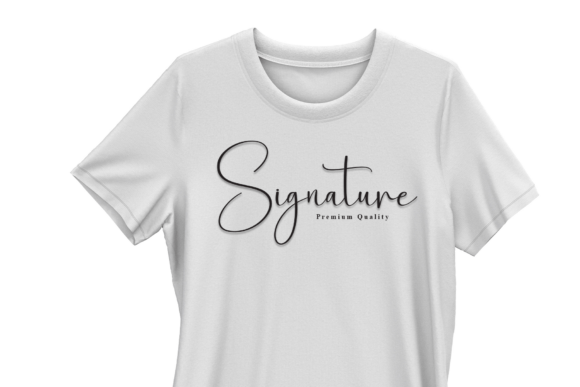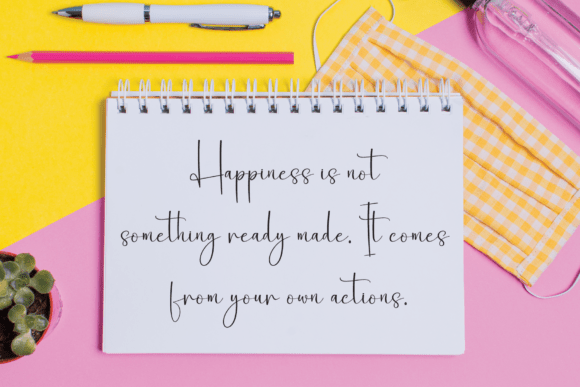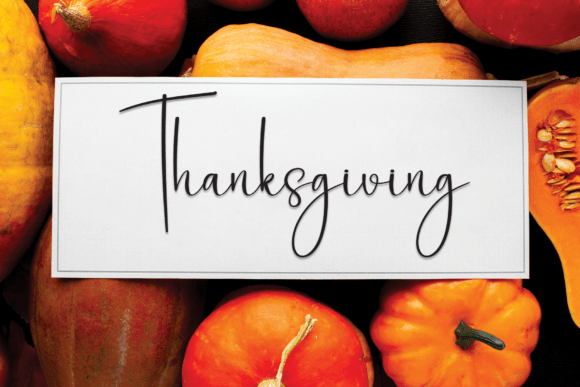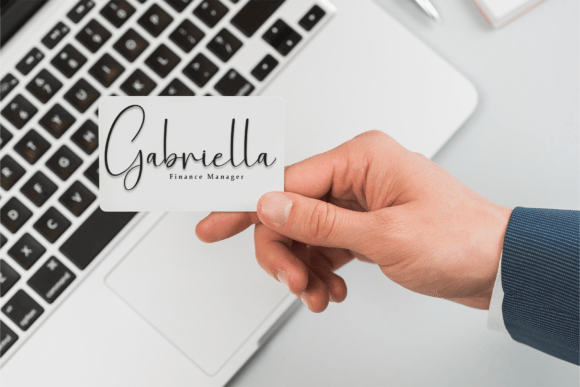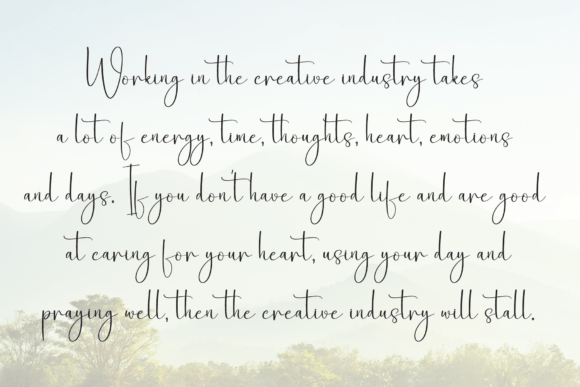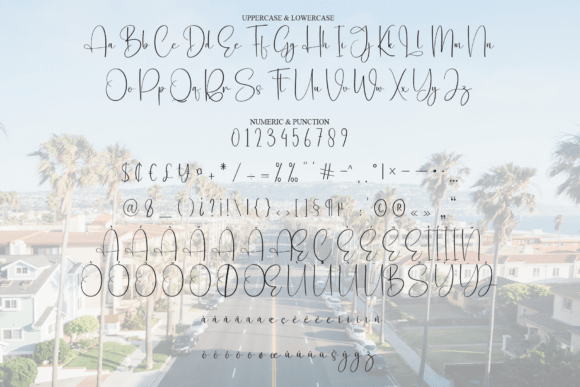
Discovering the Perfect Font: A Designer’s Delight
Have you ever stared at a blank canvas, waiting for inspiration to strike? That’s exactly what happened to me the day I stumbled upon the Callifornia Font. I was searching for the perfect script font to elevate my branding project, and this elegant typeface caught my eye. Its flowing strokes and organic curves immediately resonated with me, and I knew I had found my new go-to font.
The Callifornia Font is a stylish handwritten script font that combines elegance with a modern flair. Whether you’re creating branding materials, invitations, or social media posts, this typeface adds a personal, refined touch with effortless charm. For designers, the Callifornia Font is a valuable asset, offering a unique and sophisticated look that sets projects apart from the crowd.
- Unique Characteristics: The California Font features a unique blend of modern and classic elements, with a focus on clean lines, rounded edges, and a friendly, approachable feel.
California Font Review
When I first laid eyes on the California font, I was immediately drawn to its carefree, laid-back vibe ✨. The font’s design captures the essence of the Golden State perfectly, with its rounded edges and relaxed feel. The font is incredibly versatile and can be used for a wide range of projects, from logos and branding to headings and body text.
One of the standout features of the California font is its legibility. The font is designed to be easy to read, even at smaller sizes, making it perfect for digital applications ✨. The font also comes in a range of weights and styles, allowing designers to create a cohesive look across different elements of their design.
- ⚠️ Limited support for non-Latin scripts, which may limit its use for global audiences
- ⚠️ Not ideal for formal or professional applications, as its relaxed feel may come across as unprofessional
Overall, I’m impressed with the California font. While it may not be the best choice for every project, it’s a great option for designers looking to create a fun, laid-back vibe ✨. With its versatility and legibility, it’s definitely worth adding to your font arsenal.
- Use it for headings and titles to add a touch of elegance and sophistication.
- Use it for creative and artistic projects, such as posters, flyers, and social media graphics.